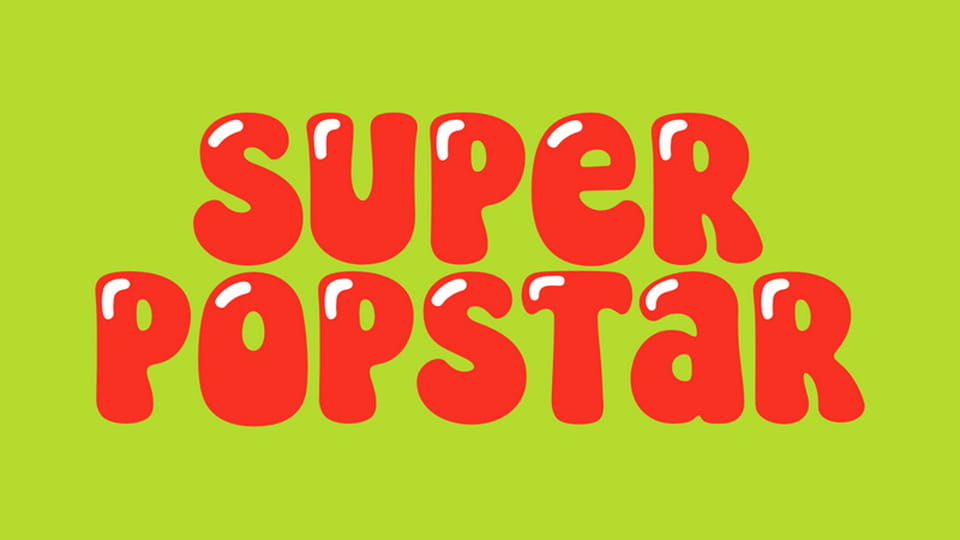
Download Super Popstar font, a bold, glossy display typeface inspired by retro pop aesthetics and candy-like letterforms. Its thick, rounded shapes and shiny highlights create a lively, energetic mood that immediately catches the eye.